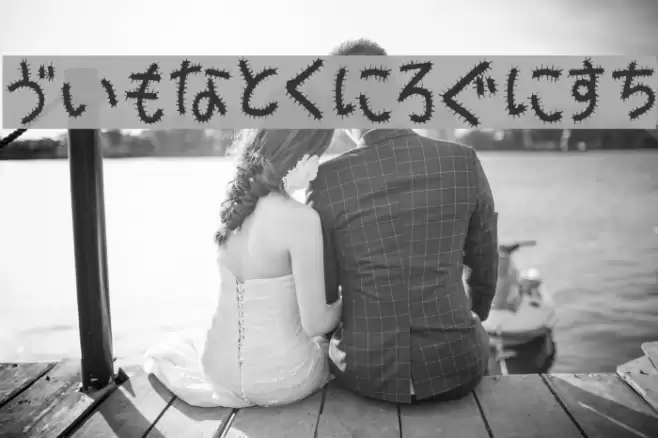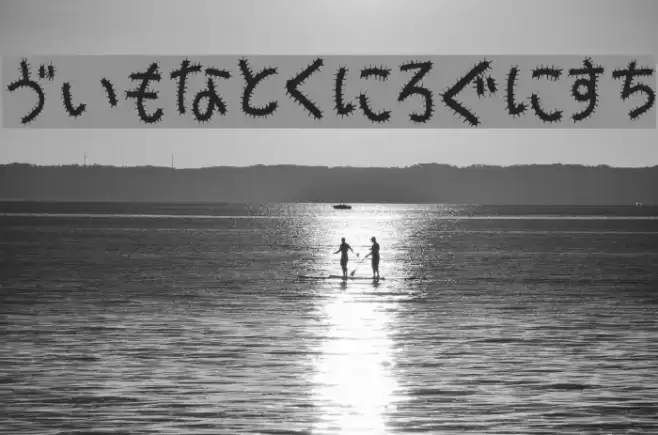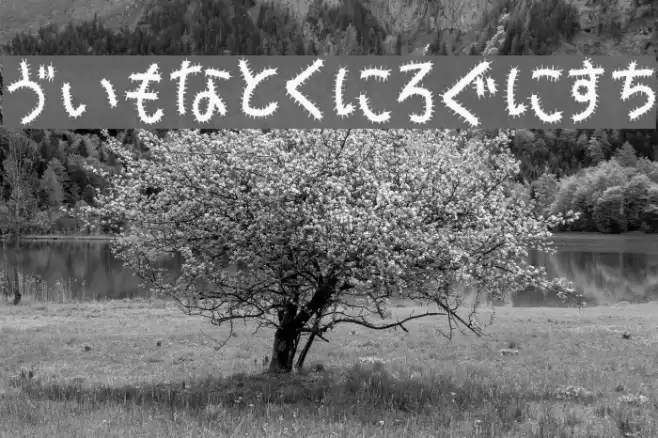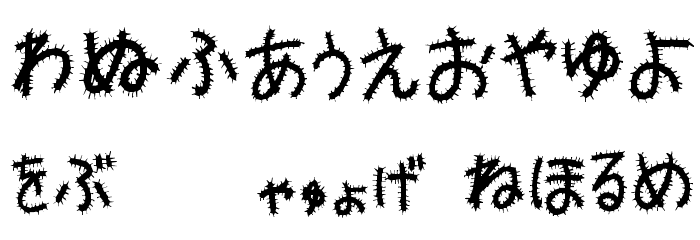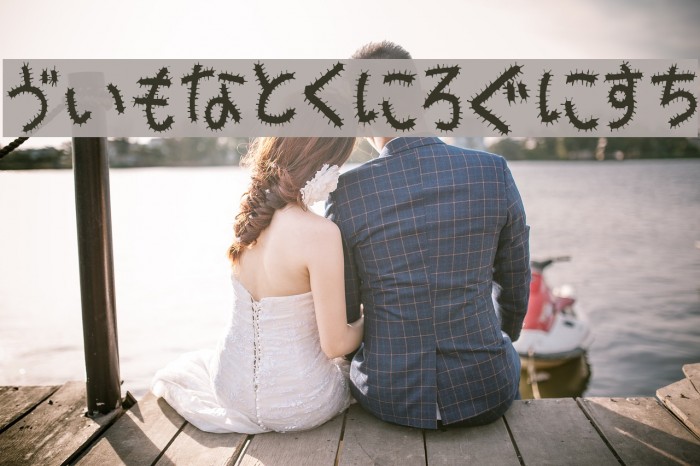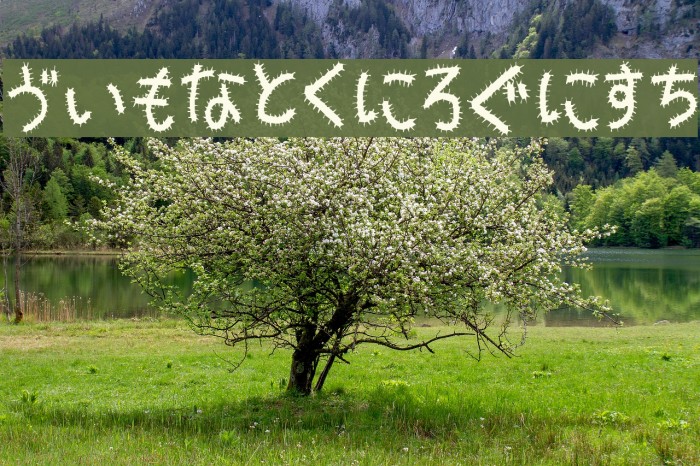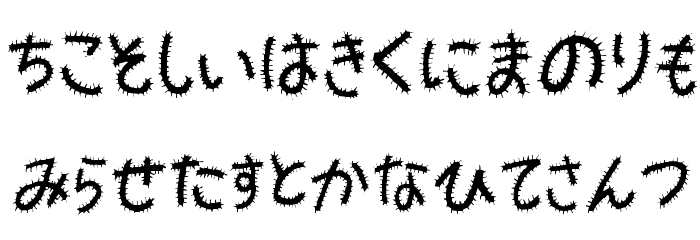
Kemushi_Hira Font
Kemushi_Hira Description
This font features a playful and whimsical design, characterized by its spiky, caterpillar-like embellishments surrounding each character. The strokes are bold and consistent, giving the font a lively and energetic appearance. The unique style adds a sense of fun and creativity, making it stand out in any design. The characters maintain a uniform size and shape, ensuring readability while still offering a distinct visual flair. This font is ideal for projects that aim to capture attention and convey a sense of joy and imagination.
A playful, spiky font with bold strokes and whimsical design from Capitals fonts.
- Proposed Projects: Ideal for children's books, playful branding, event posters, and creative invitations.
- Overall Style: Playful, Whimsical, Energetic